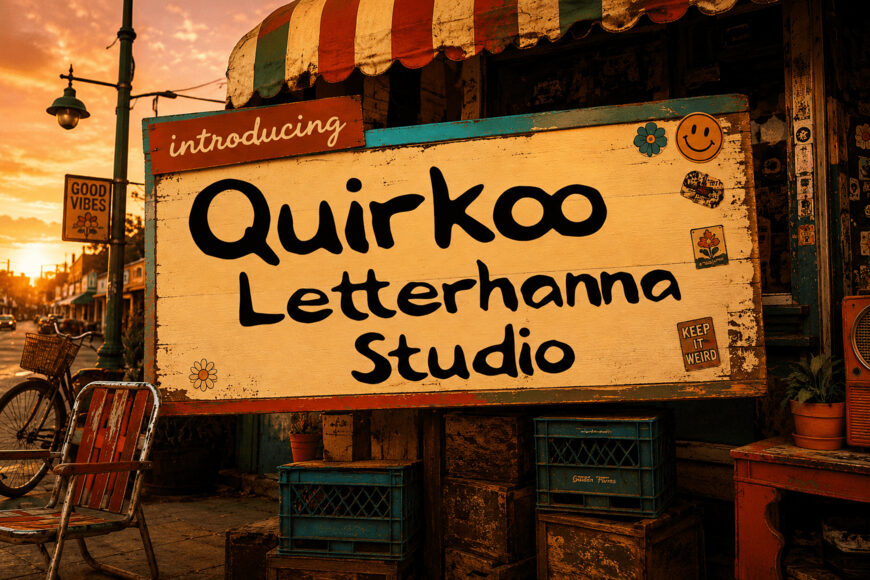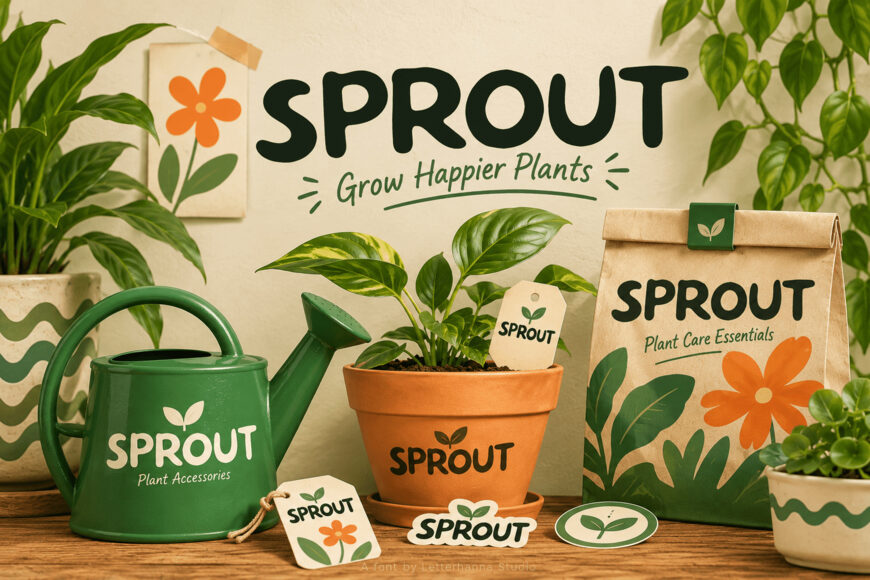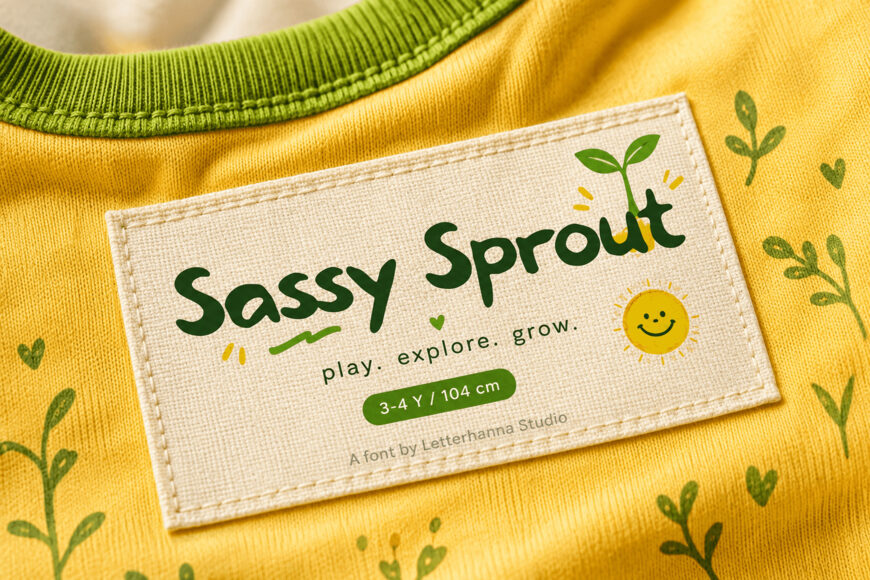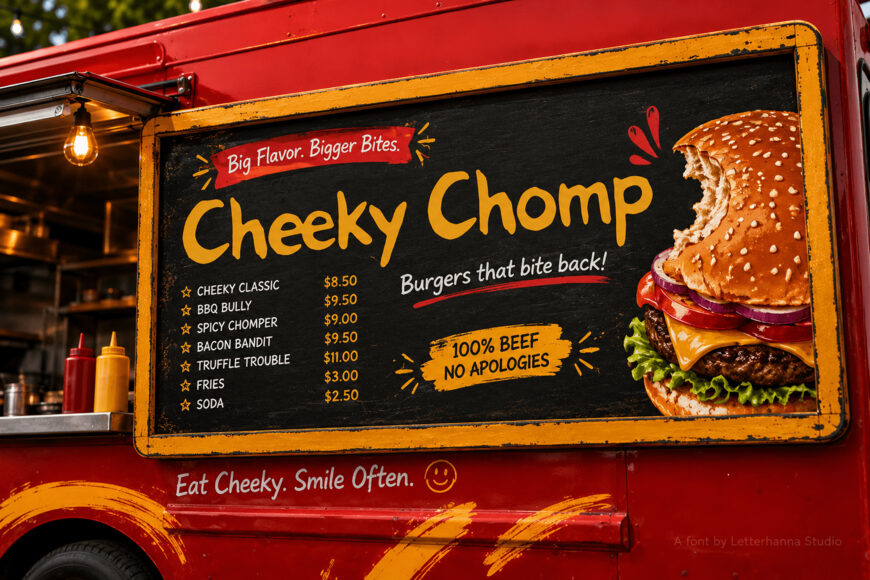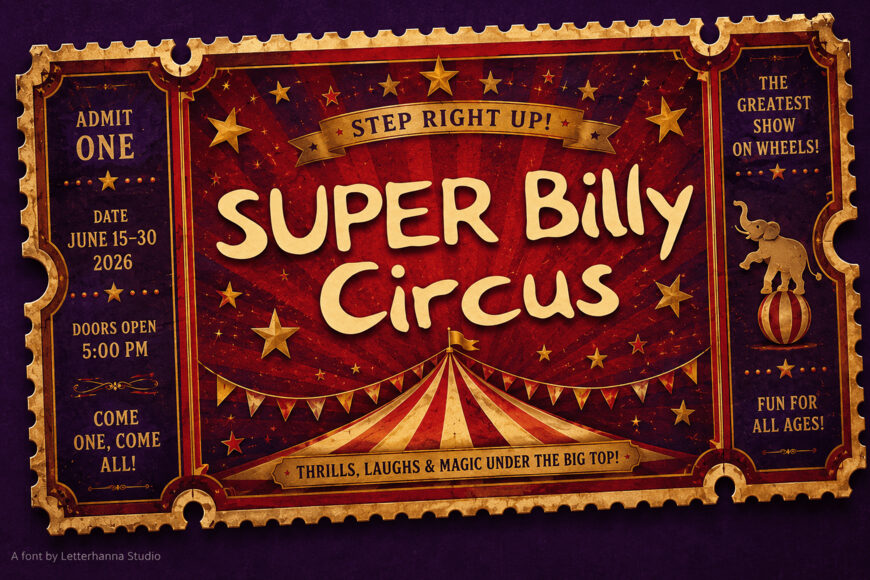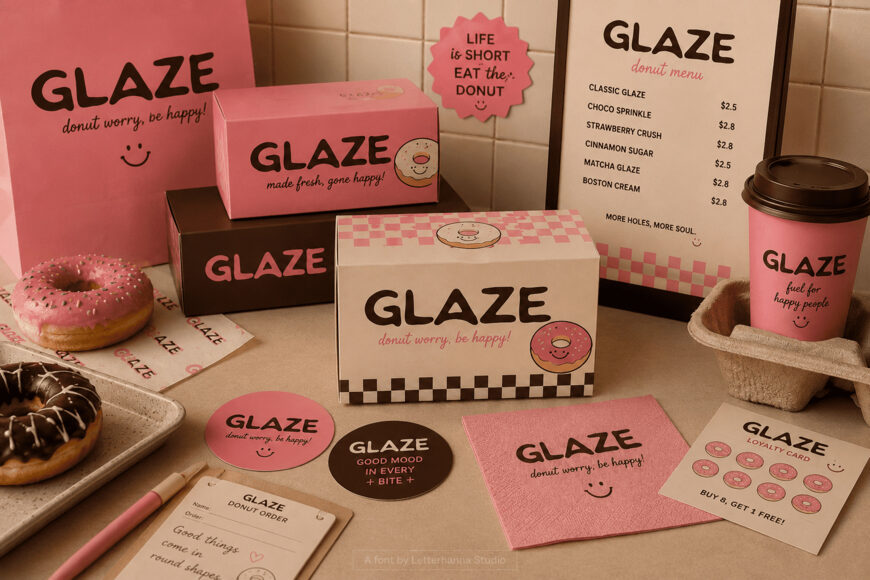
Quirkoo Font
Some fonts simply deliver words. Others make a statement. Quirkoo belongs to the second group, with chunky shapes, uneven contours, and a playful hand-drawn rhythm. Its imperfect curves, shifting widths, and lively baseline give every letter a human personality. Bold uppercase forms and quirky lowercase characters make it ideal for designs that need humor, energy, and originality.
Perfect for packaging, posters, stickers, apparel, greeting cards, thumbnails, social media graphics, and small-business branding, Quirkoo turns simple words into memorable visual characters. Use it when polished typography feels too sterile and your design needs something more expressive.